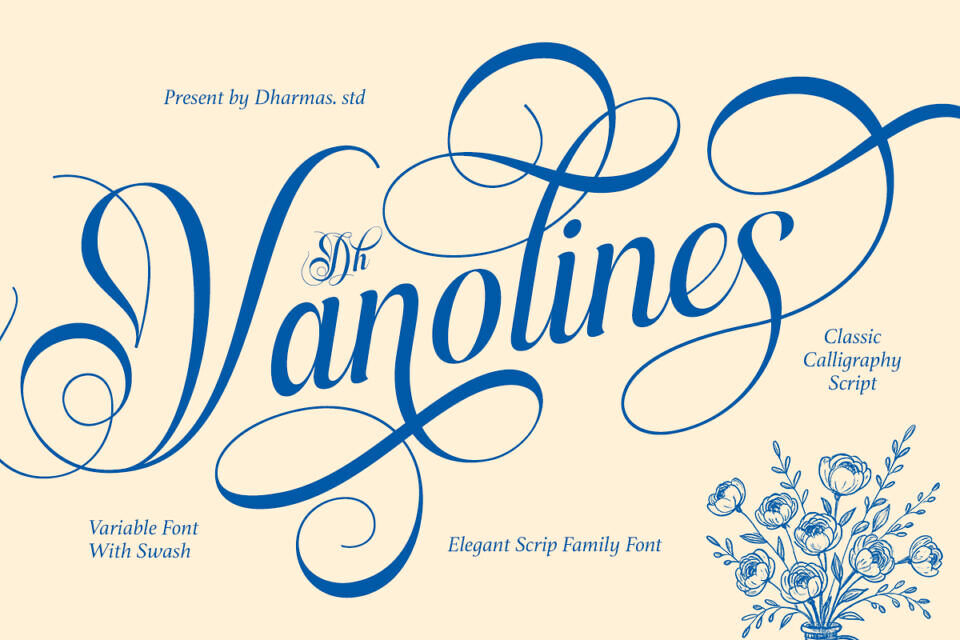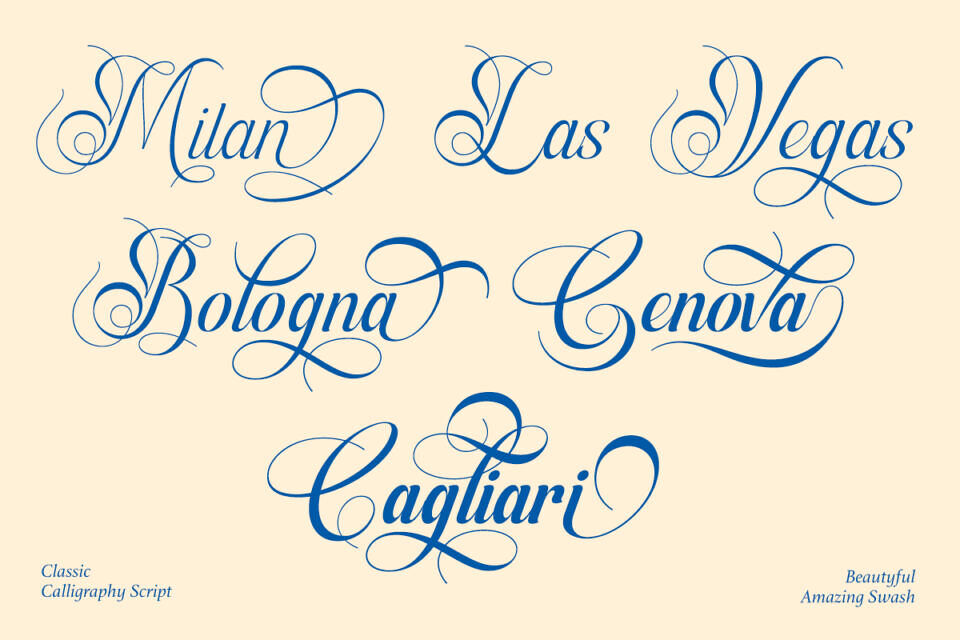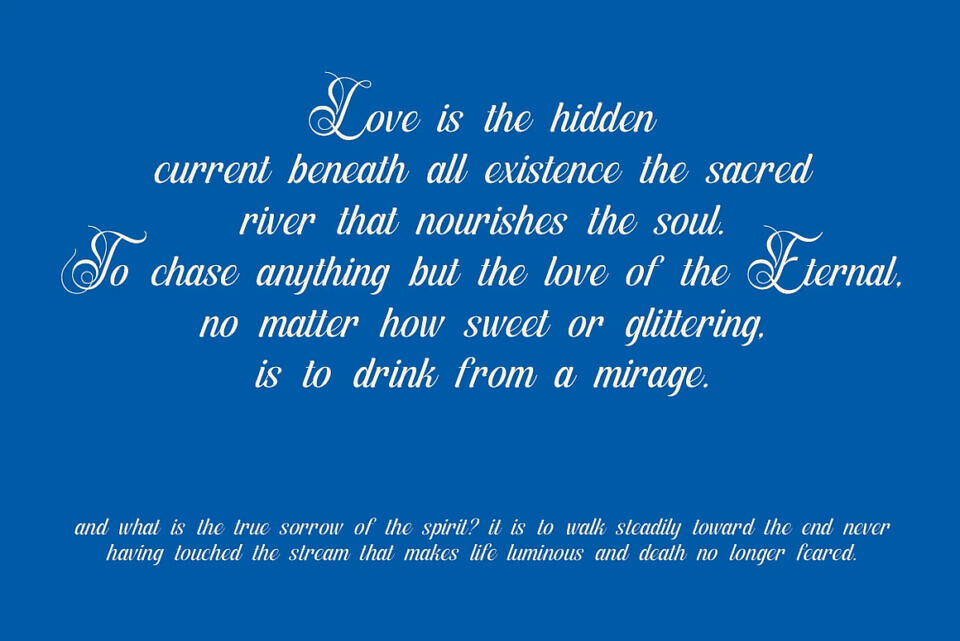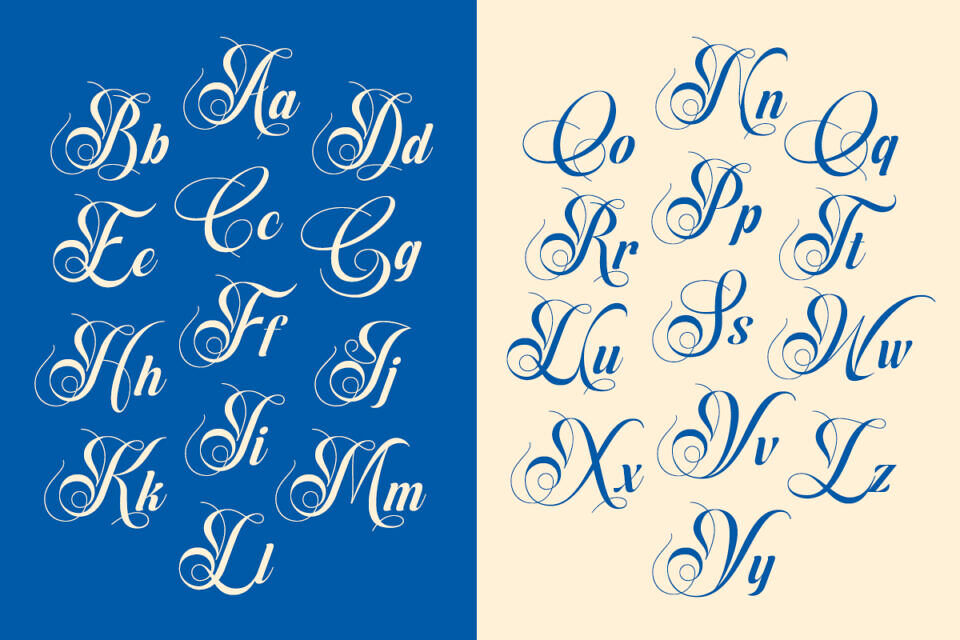
Dh Vanolines Font
Dh Vanolines is an exquisite calligraphy script font designed with timeless elegance and artistic flair. Its flowing curves and dramatic swashes bring a touch of romance and sophistication to every project.
Featuring 7 refined styles — Thin, Extra Light, Light, Regular, Medium, Semi Bold, and Bold — this typeface offers versatility for both delicate and bold expressions. It’s ideal for wedding invitations, upscale branding, editorial headlines, and luxury packaging.
With over 160+ alternates and ligatures, Dh Vanolines empowers you to craft expressive, personalized typography. Combined with full OpenType features and multilingual support, this font gives you the creative tools to design with confidence and grace.